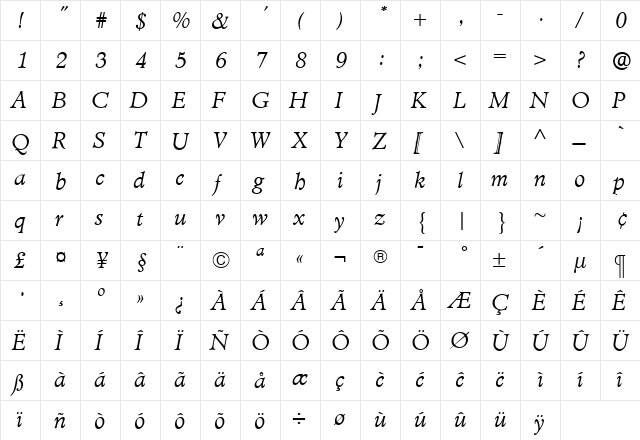
TCAdministerBookItalic Roman Font Preview
TCAdministerBookItalic Roman
Design Context for TCAdministerBookItalic Typeface
TCAdministerBookItalic takes a measured approach to typography — its balanced proportions and neutral character make it a reliable workhorse for both digital and print work. Its italic angle brings a sense of urgency and motion to the letterforms.